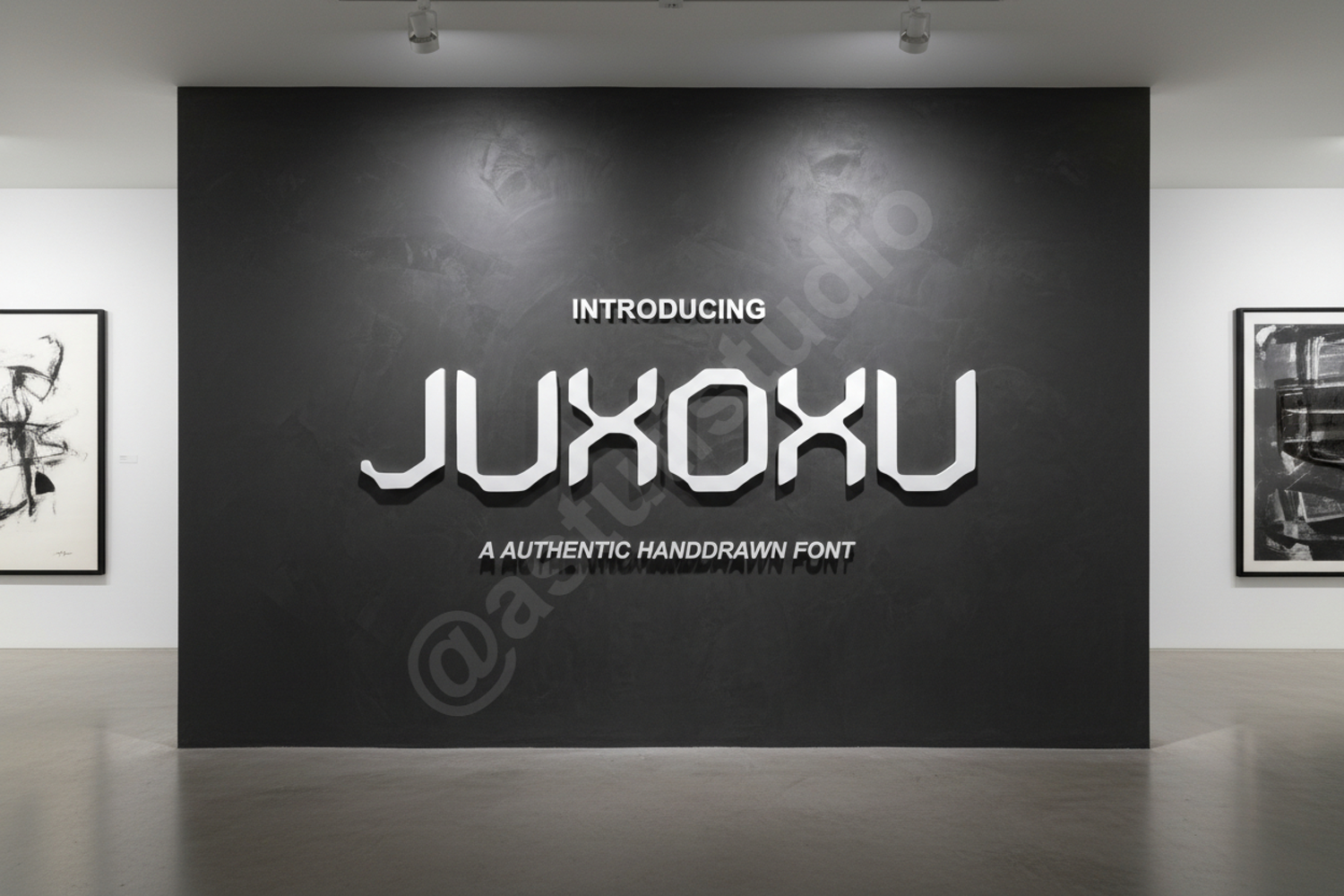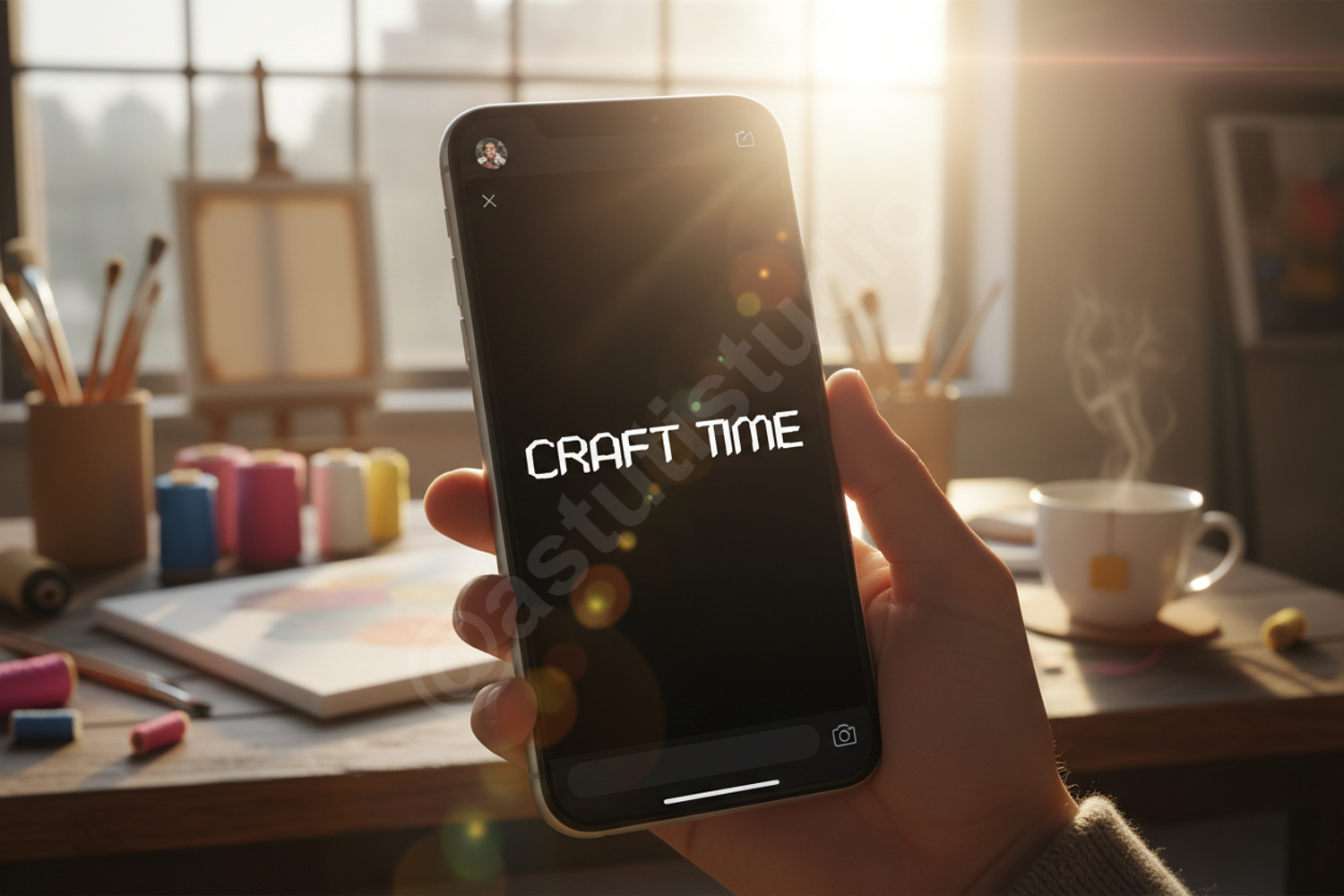
Juxoxu - Sophisticated Modern Geometric Sans Serif
Juxoxu
Elevate your creative projects with Juxoxu, a premium geometric sans-serif font meticulously crafted for professional designers. Juxoxu strikes the perfect balance between modern minimalism and high-end elegance, making it an essential addition to any creative toolkit. Its clean lines and balanced proportions ensure maximum legibility and a polished aesthetic across all digital and print mediums.
Juxoxu is highly versatile and excels in a variety of high-impact applications including:
- Professional Branding and Visual Identity Systems
- High-end Editorial and Magazine Layouts
- Minimalist Logo Design and Wordmarks
- Modern Website Headers and User Interface Design
- Corporate Presentations and Stationery
- Luxury Packaging and Sophisticated Print Media